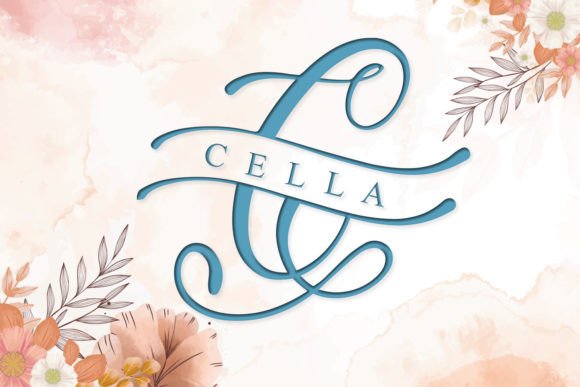
Introducing Cella Monogram, an exquisite decorative font family that exudes elegance and sophistication. This alluring creation by niyos.studio is a treasure trove of beauty and charm, perfect for adding a touch of magic to your creative endeavors.
Cella Monogram is not just a font; it's an artistic expression that captivates the senses. Its delicate strokes and intricate details evoke a sense of romance and whimsy, making it the ideal choice for love letters, wedding invitations, and any design project that calls for a touch of enchantment.
With Cella Monogram, your words will come alive, dancing across the page with grace and fluidity. Its elegant curves and flourishes add a touch of luxury and refinement, transforming ordinary text into a work of art.
But Cella Monogram is more than just a beautiful font; it's also incredibly versatile. Its wide range of weights and styles allows you to create a diverse range of designs, from delicate and ethereal to bold and striking. Whether you're working on a website, a marketing campaign, or a personal project, Cella Monogram has the power to elevate your vision and make your words shine.